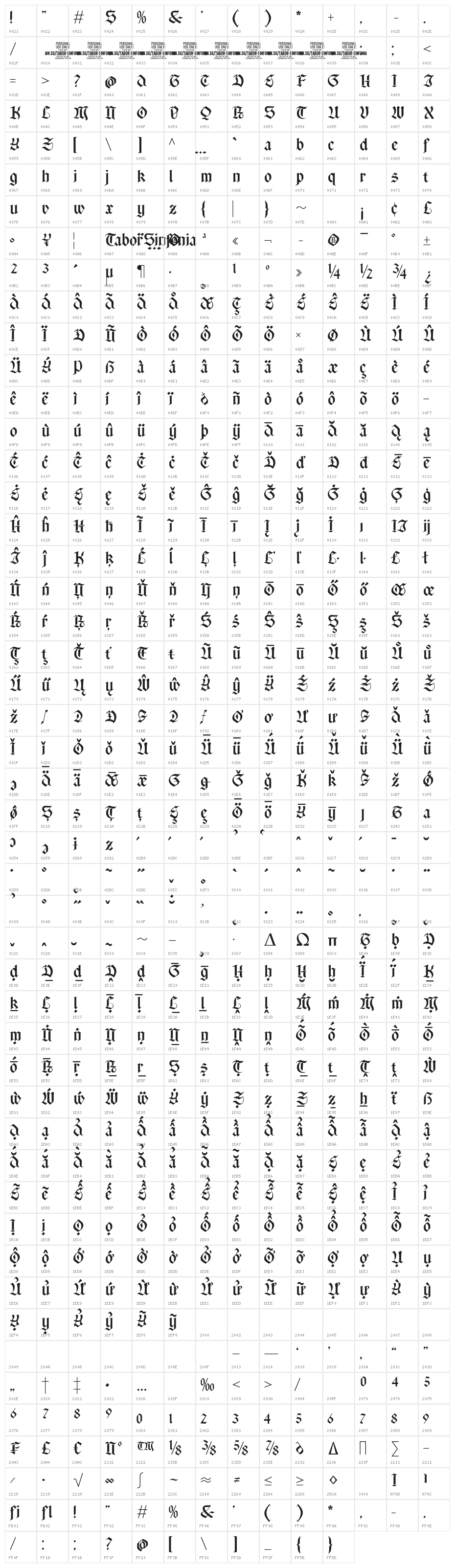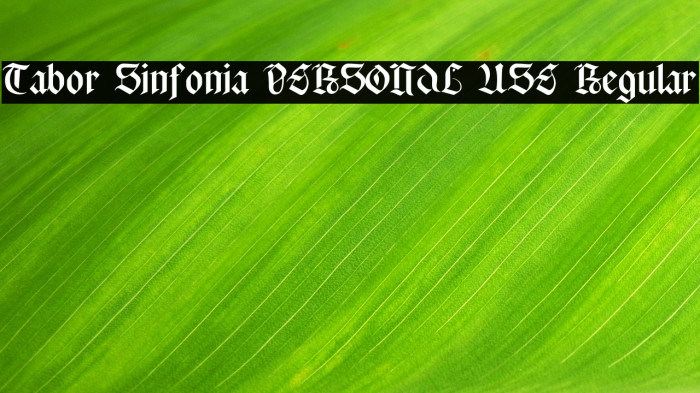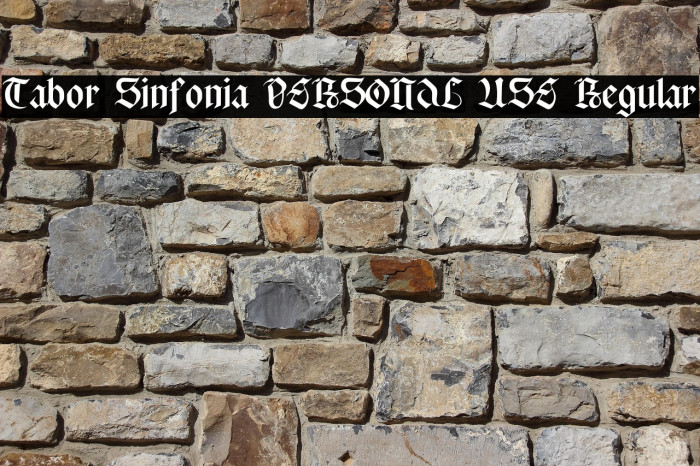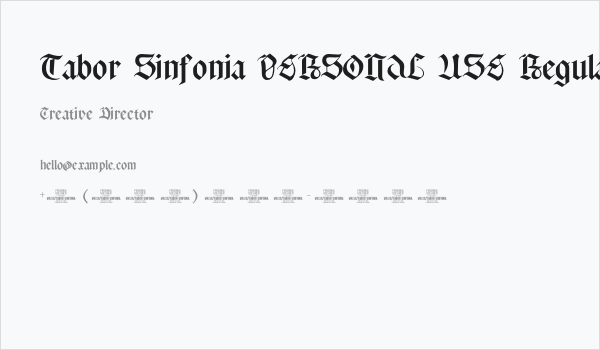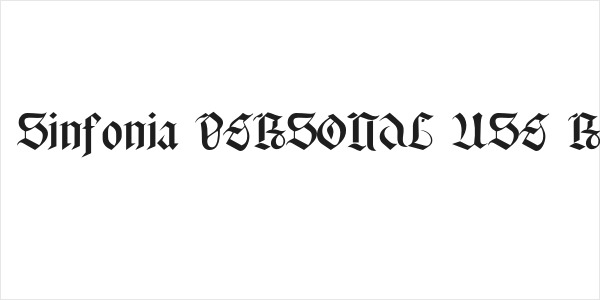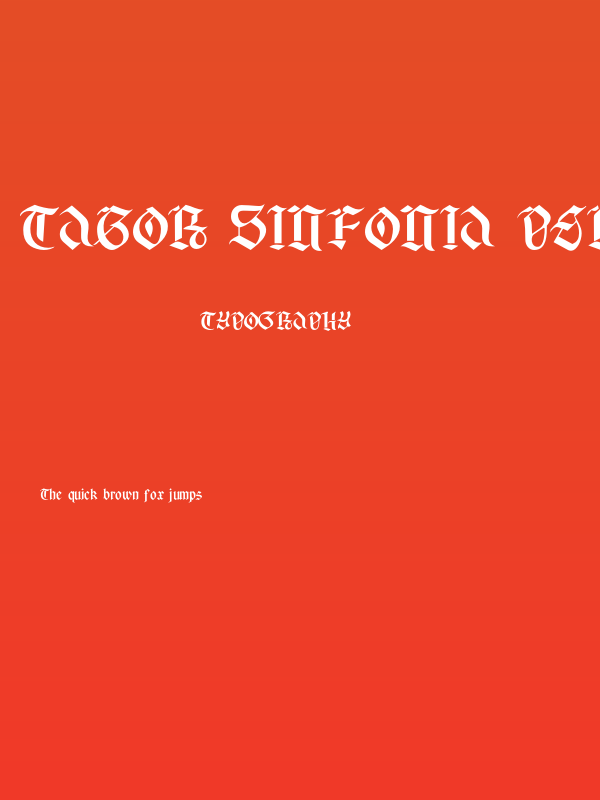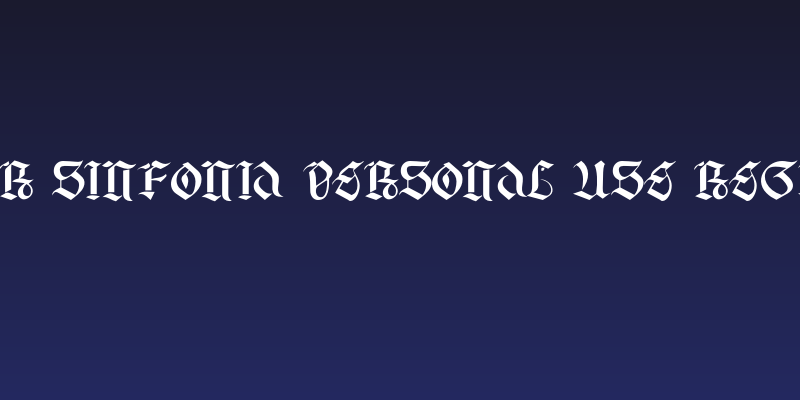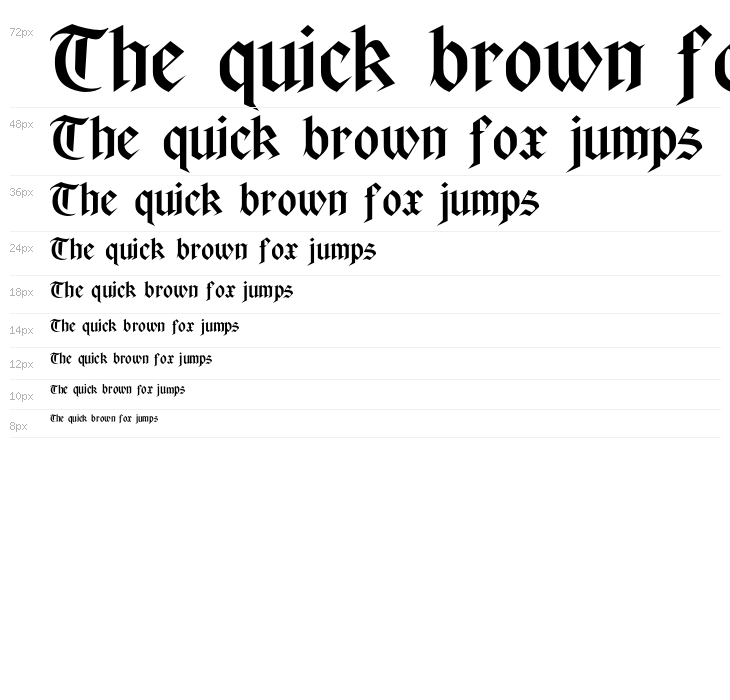
Tabor Sinfonia PERSONAL USE Regular Font
Tabor Sinfonia PERSONAL USE Regular Description
This font features a bold and dramatic style reminiscent of traditional blackletter typefaces. The characters are intricately designed with sharp angles and strong vertical strokes, giving it a gothic and medieval appearance. The uppercase letters are particularly ornate, with elaborate serifs and flourishes that enhance its decorative appeal. The lowercase letters maintain the same level of detail, ensuring consistency throughout the typeface. The numerals and special characters are equally stylized, making this font suitable for projects that require a historical or formal aesthetic.